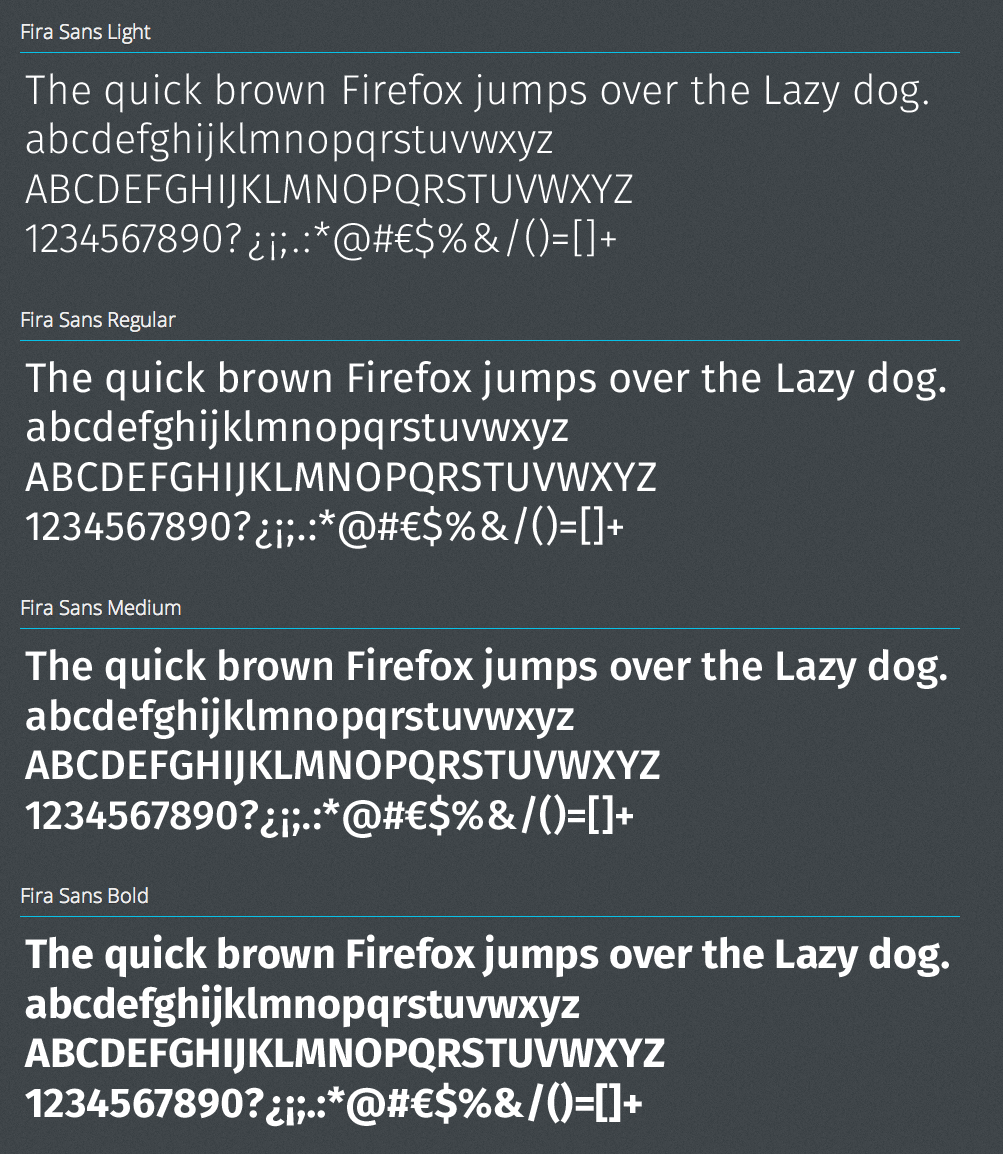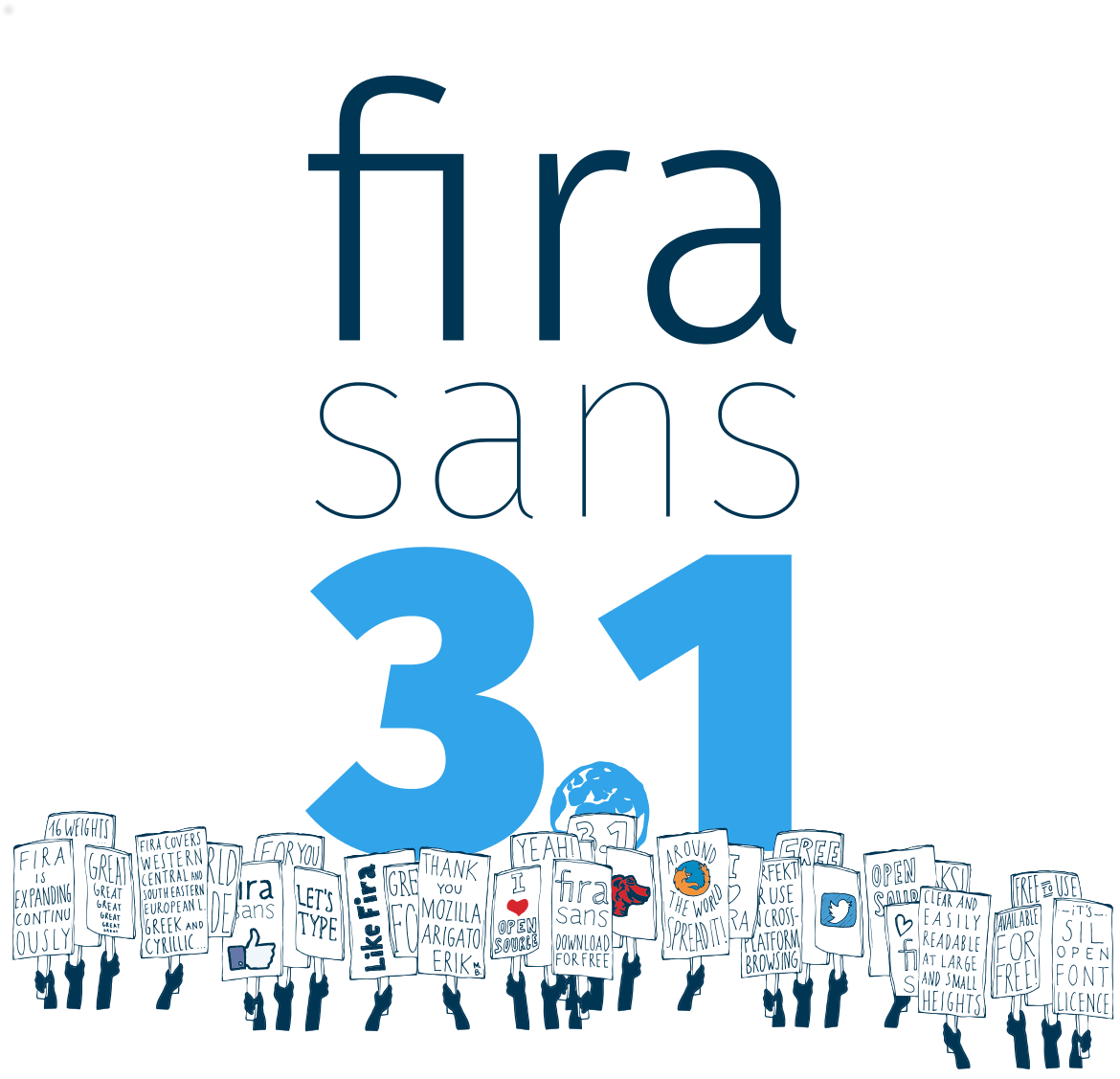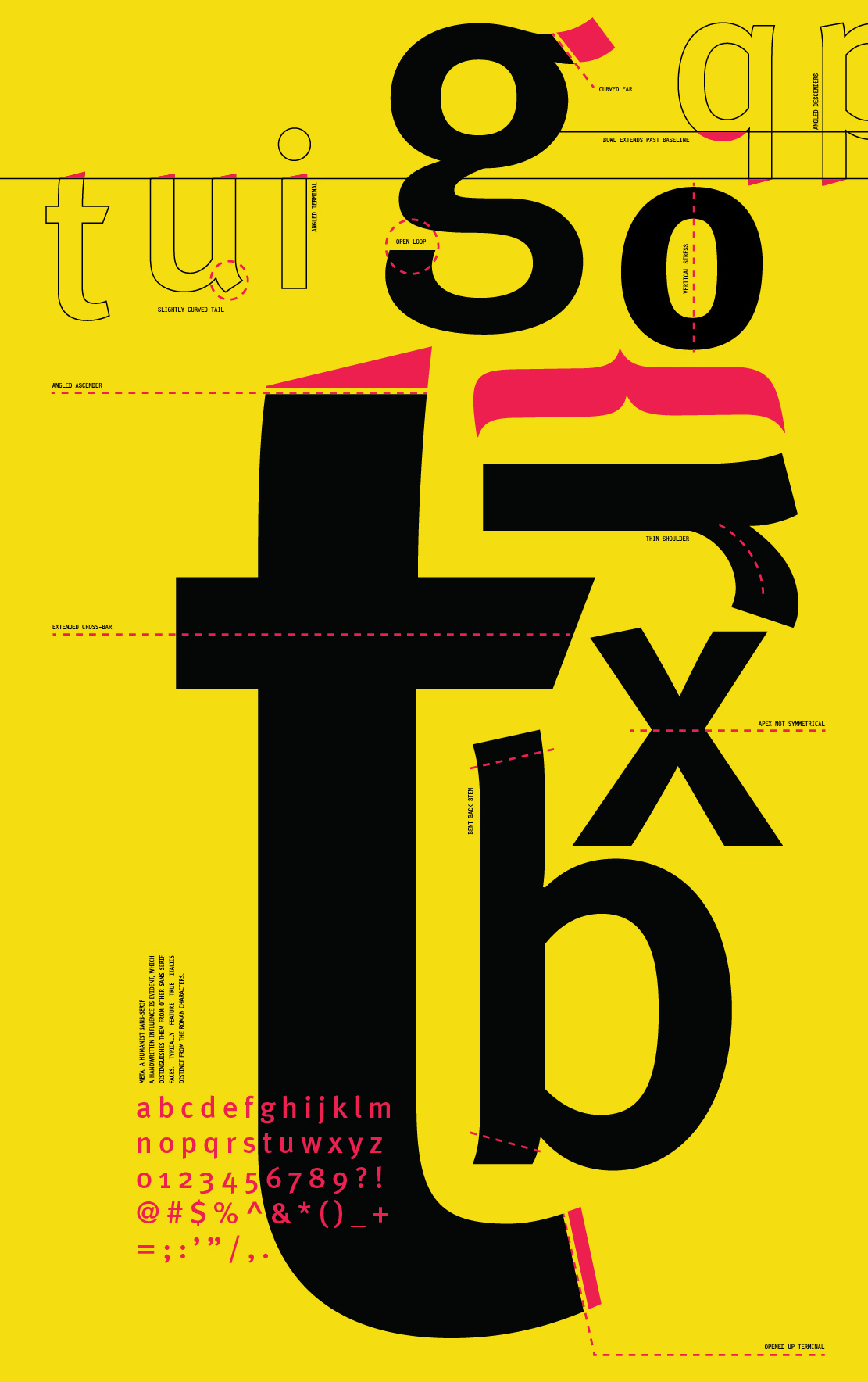
Erik Spiekermann
German type designer and graphic designer par excellence, born in 1947 in Stadthagen. He set up MetaDesign in Berlin in 1979. In 1988 he set up FontShop, home of the FontFont collection. He holds an honorary professorship at the Academy of Arts in Bremen, is board member of ATypI and the German Design Council, and president of the ISTD (International Society of Typographic Designers). In July 2000, Erik left MetaDesign Berlin. He now lives and works in Berlin, London and San Francisco, designing publications, complex design systems and more typefaces. He collaborated on the publication of the comprehensive FontBook. Author of Stop Stealing Sheep & Find Out How Type Works (2nd Edition) (Adobe Press, Second Edition, 2002, First Edition, 1993). He taught typography at the Art Academy in Bremen, and is guest-lecturer at several schools around the world.
In October 2003, he received the third Gerrit Noordzij Prize, which is given every other year to a designer who has played an important role in the field of type design and typography. It is an initiative of the postgraduate course in Type&Media at the Hague Royal Academy of Art with the Meermanno Museum (The Hague).
Presentation at ATypI 2006 in Lisbon. Presentation at ATypI 2008 in St. Petersburg. Interviewed in 2006 by Rob Forbes. Speaker at ATypI 2010 in Dublin.
He made the following typefaces and type families:
• Lo-Type (1913, Louis Oppenheim) was digitally adapted by Spiekermann for Berthold in 1979-1980. BERTLib sells it as Adlon Serif ST.
• PT 55 (1986), the precursor of FF Meta.
• Berthold Block
• Berliner Grotesk (1979-1980, Berthold): based on an old Berthold AG typeface from 1923.
• FF Govan (2001, by Ole Schaefer and Erik Spiekermann).
• The huge families FF Meta1, FF Meta2, FF Meta3 (2003), FF Meta Condensed (1998) and FFMetaCorrespondence. The FF Meta families (1985) were originally designed for Bundespost, which did not use it--it stayed with Helvetica for a while and now uses Frutiger. Meta comes with CE, Cyrillic, Greek and Turkish sets as well. Weights like Meta Light (Thin, Hairline) Greek are available too. Spiekermann is a bit upset that Linotype's Textra (2002, a typeface by Jochen Schuss and Jörg Herz) looks like a cloned of Meta. FF Meta Condensed won an award at Modern Cyrillic 2014.
• Meta Serif (2007) by Christian Schwartz, Kris Sowersby and Erik Spiekermann. Later extensions by Ralph du Carrois and Botio Nikoltchev.
• ITC Officina in versions Sans Book (1989-1990) and Serif Book (1989-1990).
• Boehringer Sans and Antiqua (1996): custom types.
• Grid, which appeared in FUSE 3.
• Codesigner with Ole Schaefer (FontShop, 2000) of FF InfoDisplay and FF InfoText in 1997 and of FF InfoOffice in 2000.
• NokiaSans and NokiaSerif (2002, company identity family). This was in cooperation with Jelle Bosma. Before Nokia Sans and Serif, Nokia used Rotis. Nokia Sans and Serif were replaced by Nokia Pure (Bruno Maag) in 2011.
• Glasgow Type (1999), for the city of Glasgow, taking inspiration from the Rennie Macintosh types.
• Heidelberg Gothic (1999).
• Symantec Sans and Serif (2003): custom types.
• FF Unit (2003-2004; see also here), another sans family, which won an award at TDC2 2004. This was followed by FF Unit Rounded. And FF Unit Rounded started according to Erik as Gravis, the largest Apple dealer in Germany. FF Unit Slab (2009) is the product of a cooperation between Kris Sowersby, Christian Schwartz, and Erik Spiekermann.
• ITC Officina Display (2001).
• FF Meta Thin Light and Hairline (2003) and FF Meta Headline (2005). Developed jointly with Christian Schwartz and Josh Darden.
• Bosch Sans and Bosch Serif (2004).
• The SeatMeta family (2003) for Seat.
• DB Type in six styles (Serif, Sans, Head, Condensed, Compressed, News): designed in 2005 in collaboration with Christian Schwartz for the Deutsche Bahn (train system in Germany). Some typohiles say that it reminds them of Bell Gothic and Vesta.
• A Volkswagen company family based on a correction of Futura.
• The DWR House Numbers Series (2006): four fonts with numerals for house numbers: Contemporary House Numbers, Tech House Numbers, Classic House Numbers (based on Bodoni), Industrial House Numbers (stencil). DWR stands for Design Within Reach.
• Tech (2008, FontStruct), a rounded squarish headline face.
• Axel (2009): developed jointly with Erik van Blokland and Ralph du Carrois, it is a system font with these features:
• Similar letters and numbers are clearly distinguishable (l, i, I, 1, 7; 0, O; e, c #).
• Increased contrast between regular and bold.
• High legibility on the monitor via Clear Type support.
• Seems to outperform Courier New, Verdana, Lucida Sans, Georgia, Arial and Calibri, according to their tests (although I would rank Calibri at or above Axel for many criteria).
• In 2012-2013, Ralph du Carrois and Erik Spiekermann co-designed Fira Sans and Fira Mono for Firefox / Mozilla. This typeface is free for everyone. Google Web Font link. Open Font Library link. It is specially designed for small screens, and seems to do a good job at that. I am not a particular fan of a g with an aerodynamic wing and the bipolar l of Fira Mono, though. Mozilla download page. CTAN link. Google Web Fonts download page. Google web Fonts published Fira Sans Condensed (2012-2016) and Fira Sans Extra Condensed in 2017.